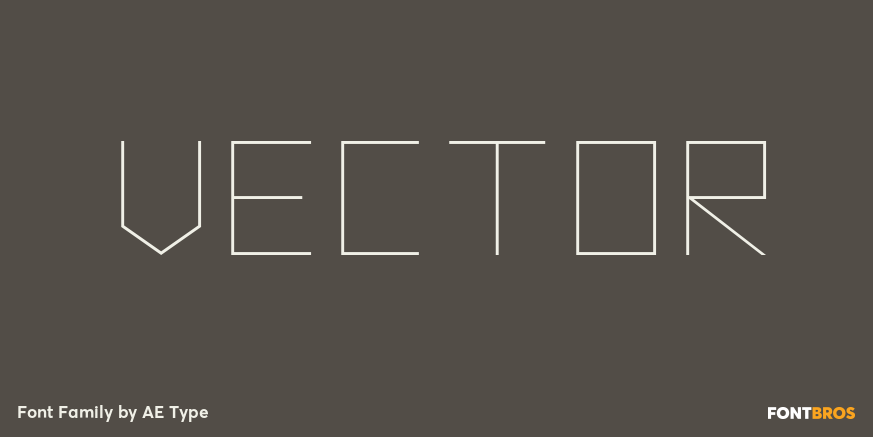
Vector
About Vector
Vector is inspired by the 1979 Atari Asteroids video game UI screen font, yet it has been completely reworked to achieve a more balanced and refined visual aesthetic, loosely adhering to the original source. Letterform widths, angles, metrics and kerning…